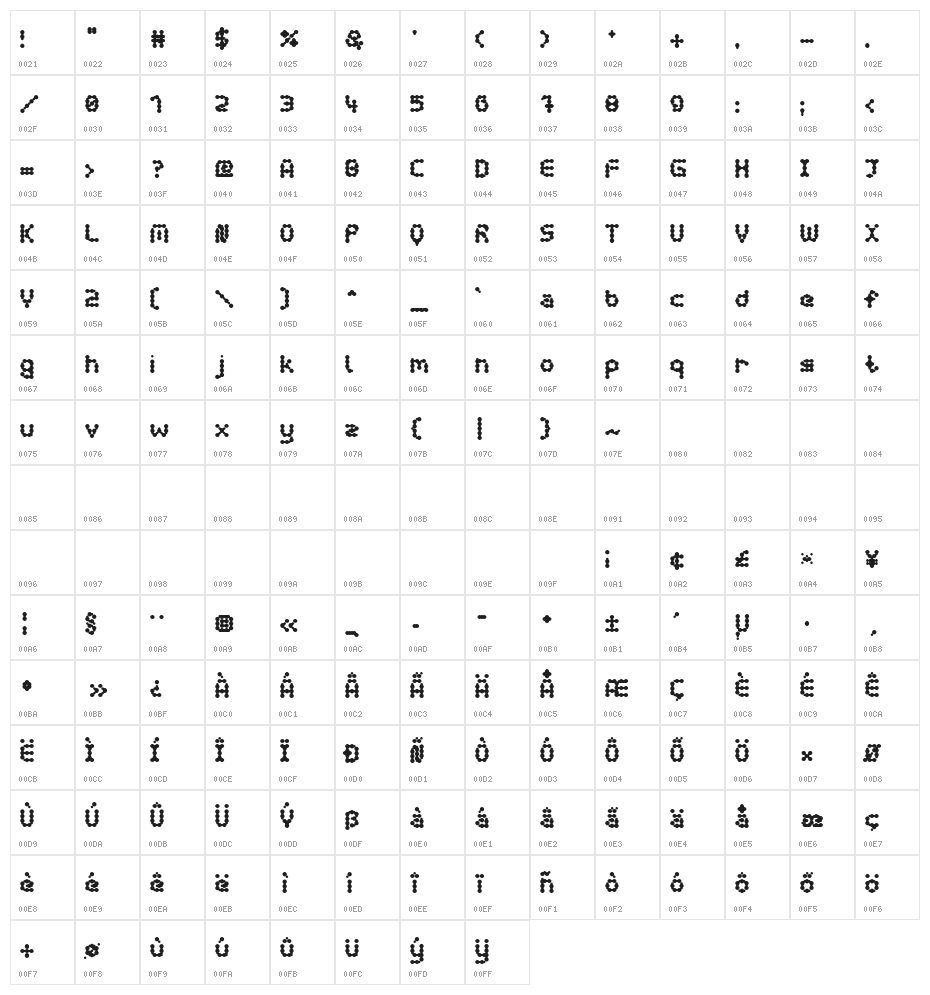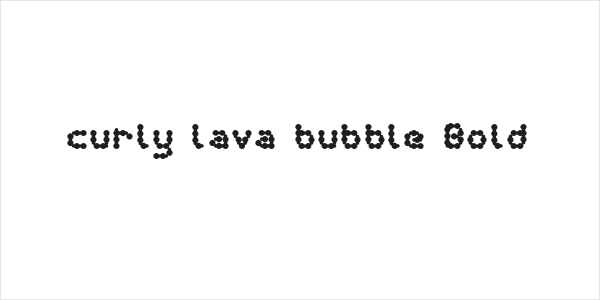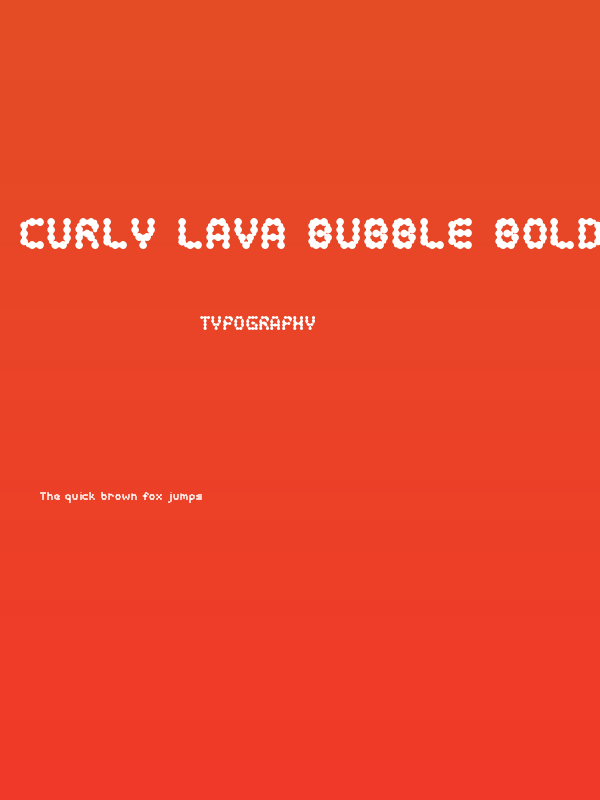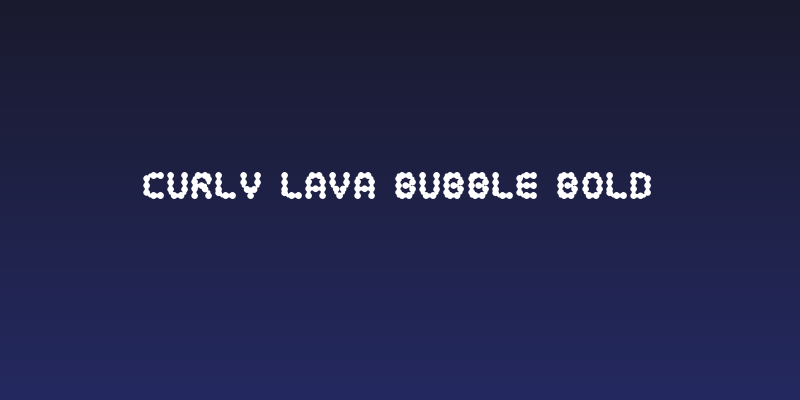
curly lava bubble Bold Font
curly lava bubble Bold Description
This font features a playful and unique design, characterized by its bubble-like, rounded shapes that form each letter and symbol. The characters are composed of interconnected circular forms, giving it a whimsical and dynamic appearance. This style is reminiscent of lava lamps or bubbly textures, making it stand out with its bold and eye-catching look. The font maintains consistent thickness throughout, contributing to its cohesive and uniform style. Its distinctiveness makes it suitable for creative and informal applications, where a fun and engaging typeface is desired.